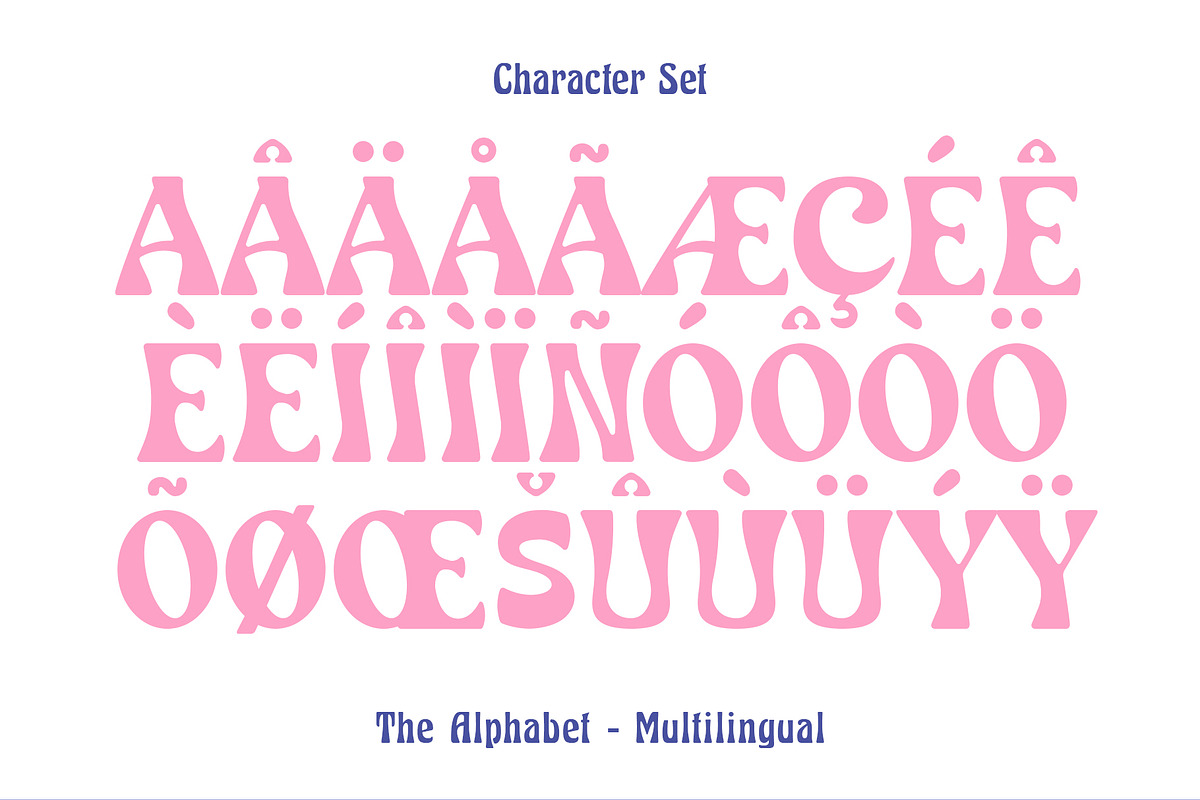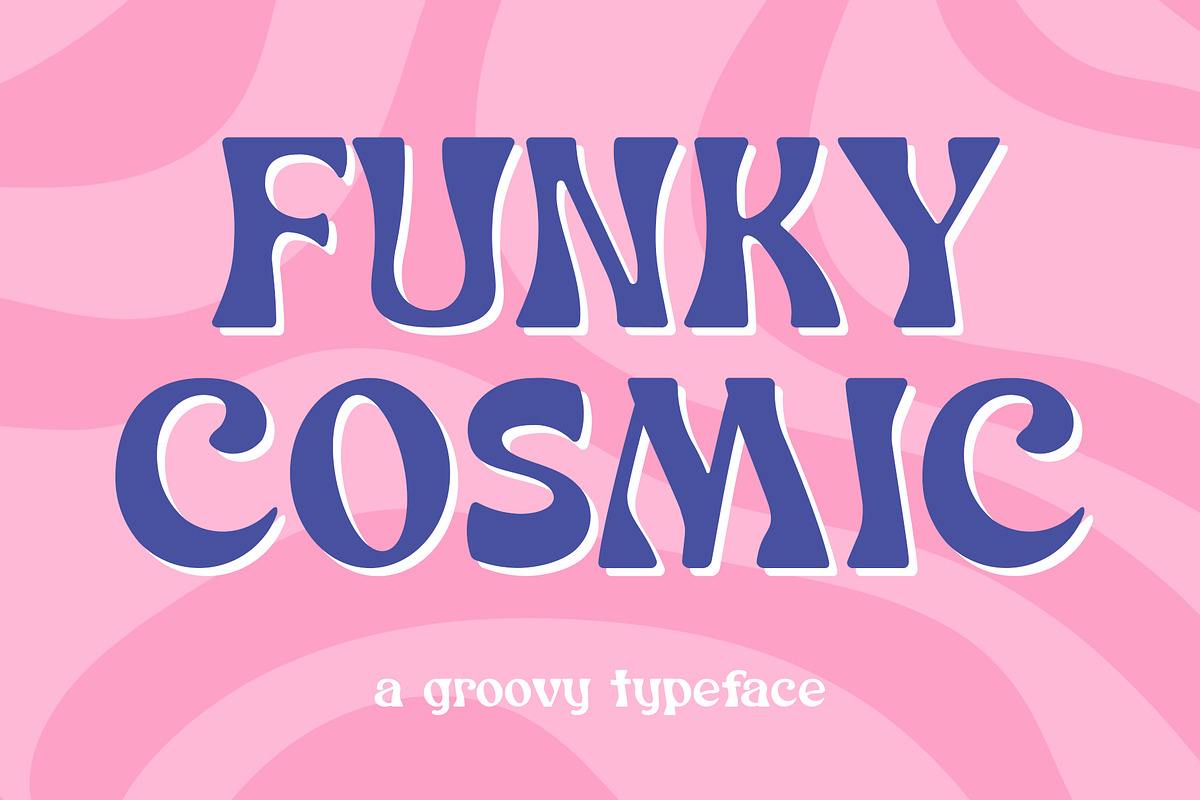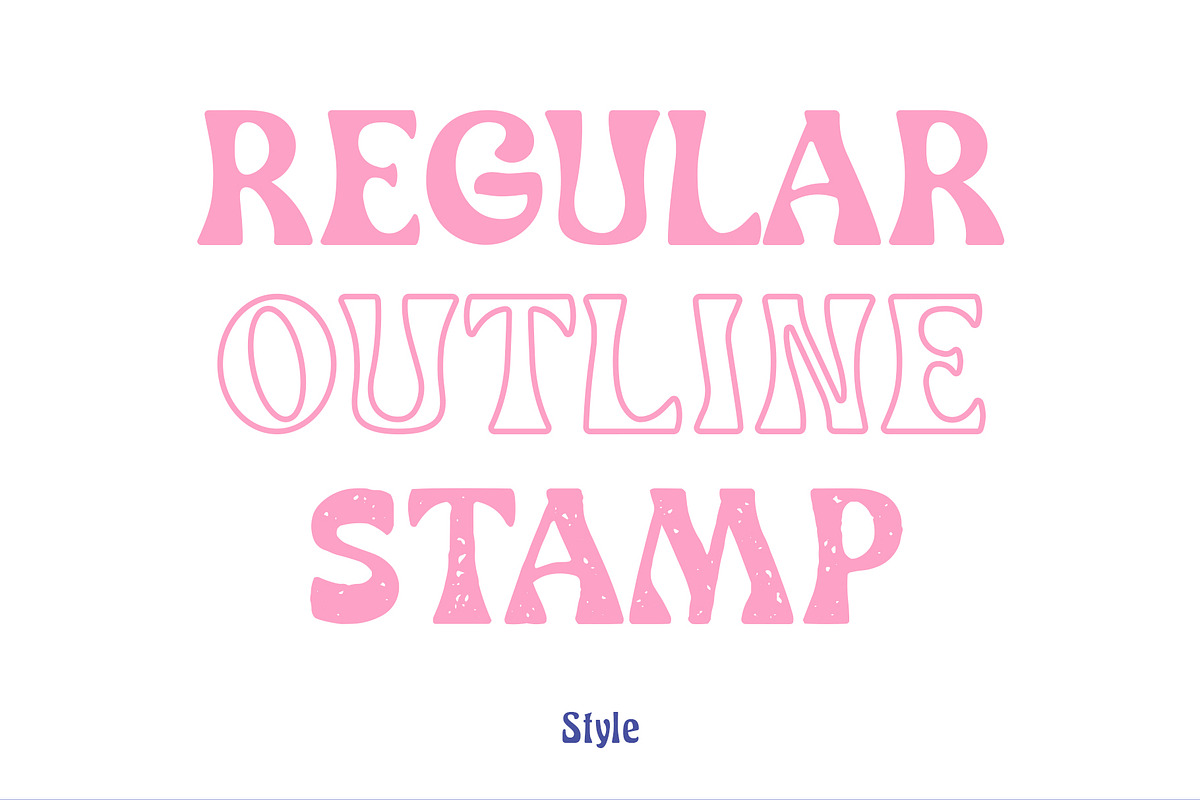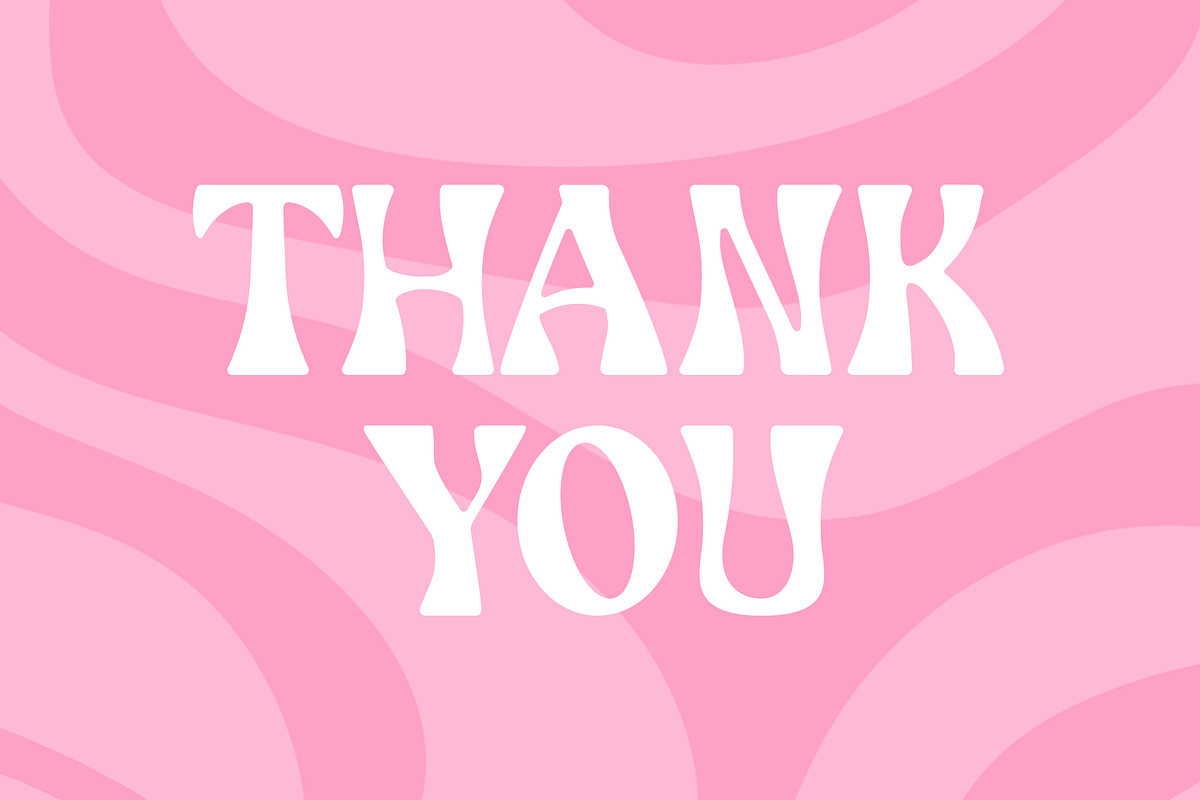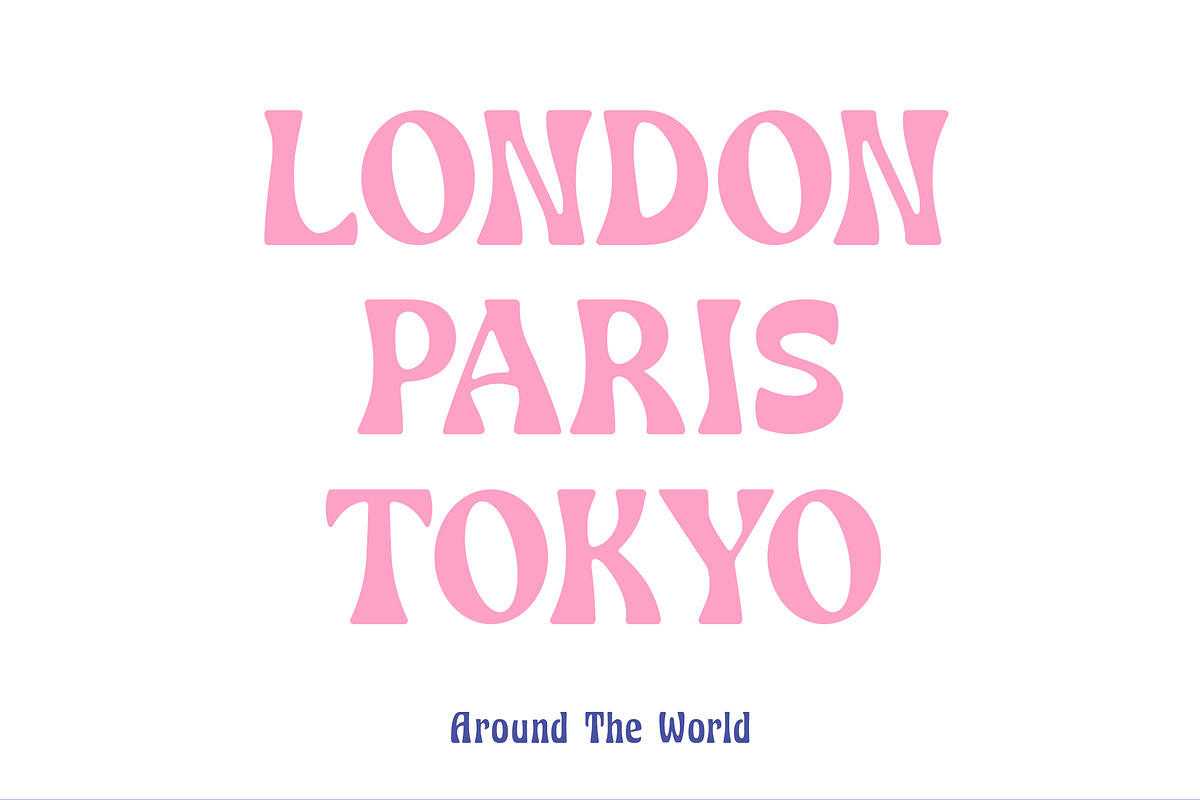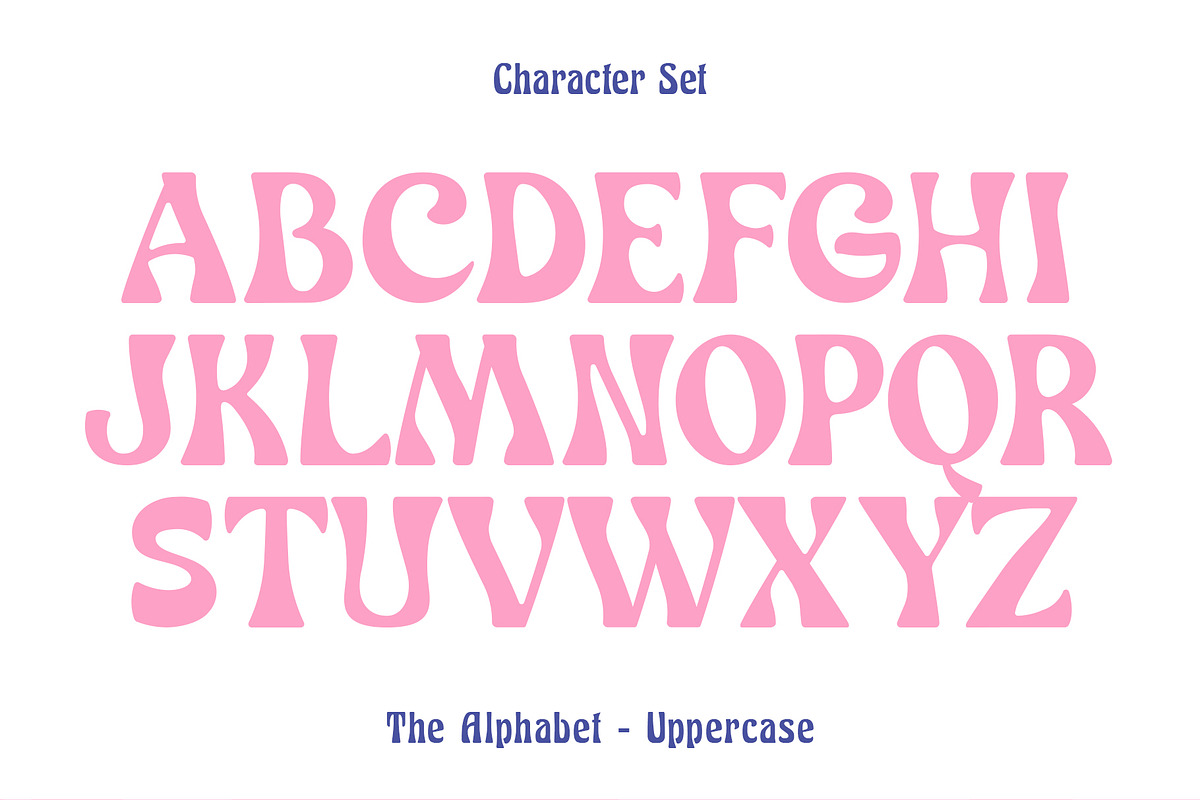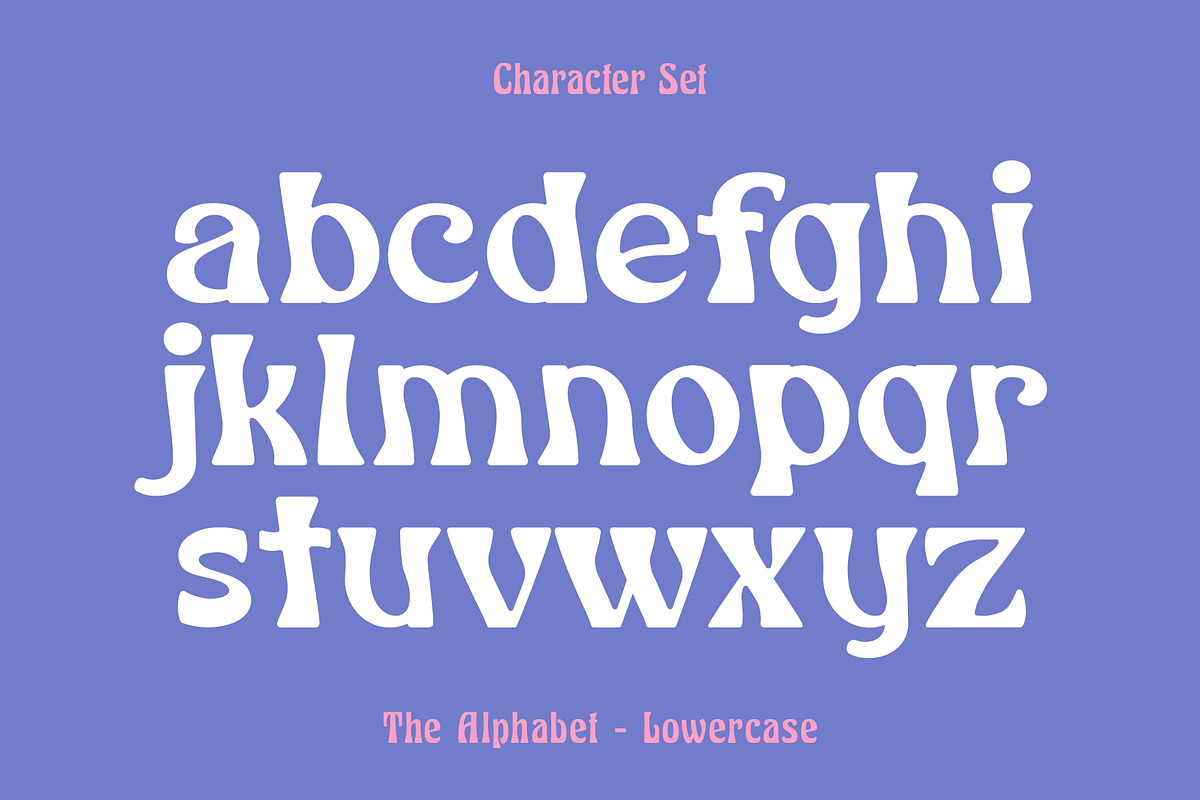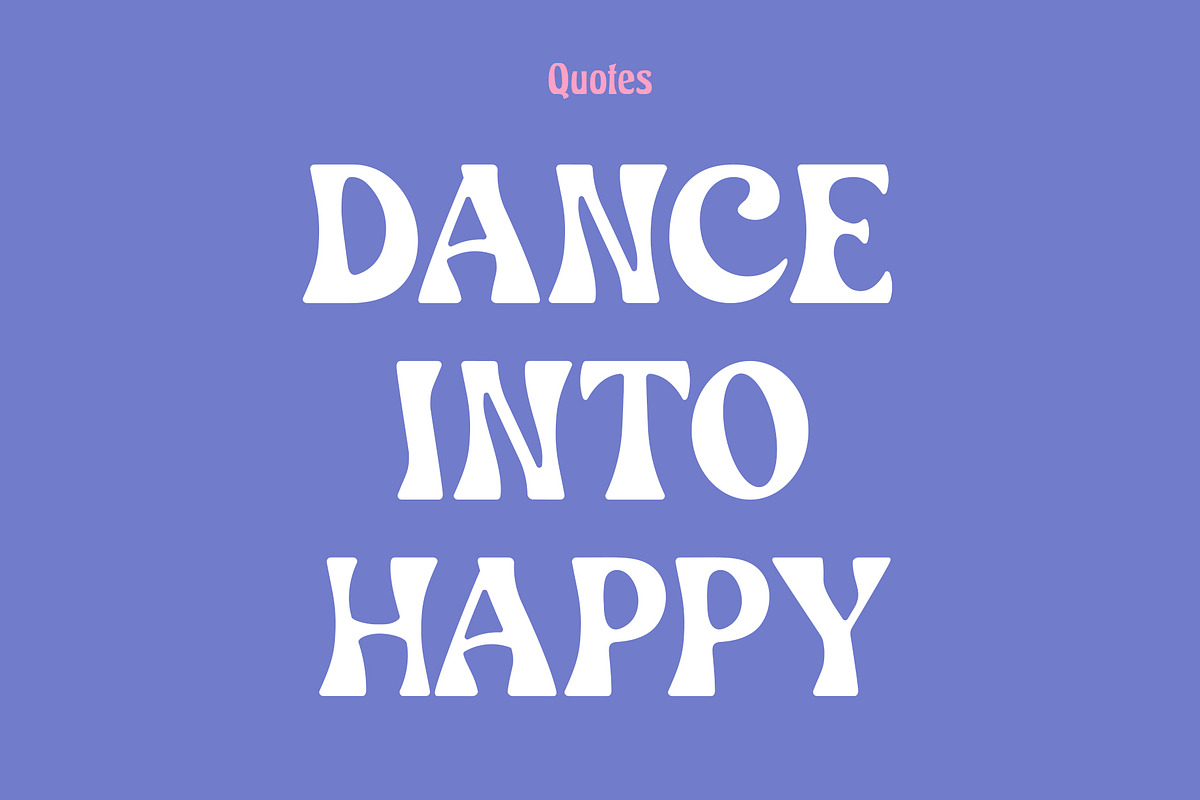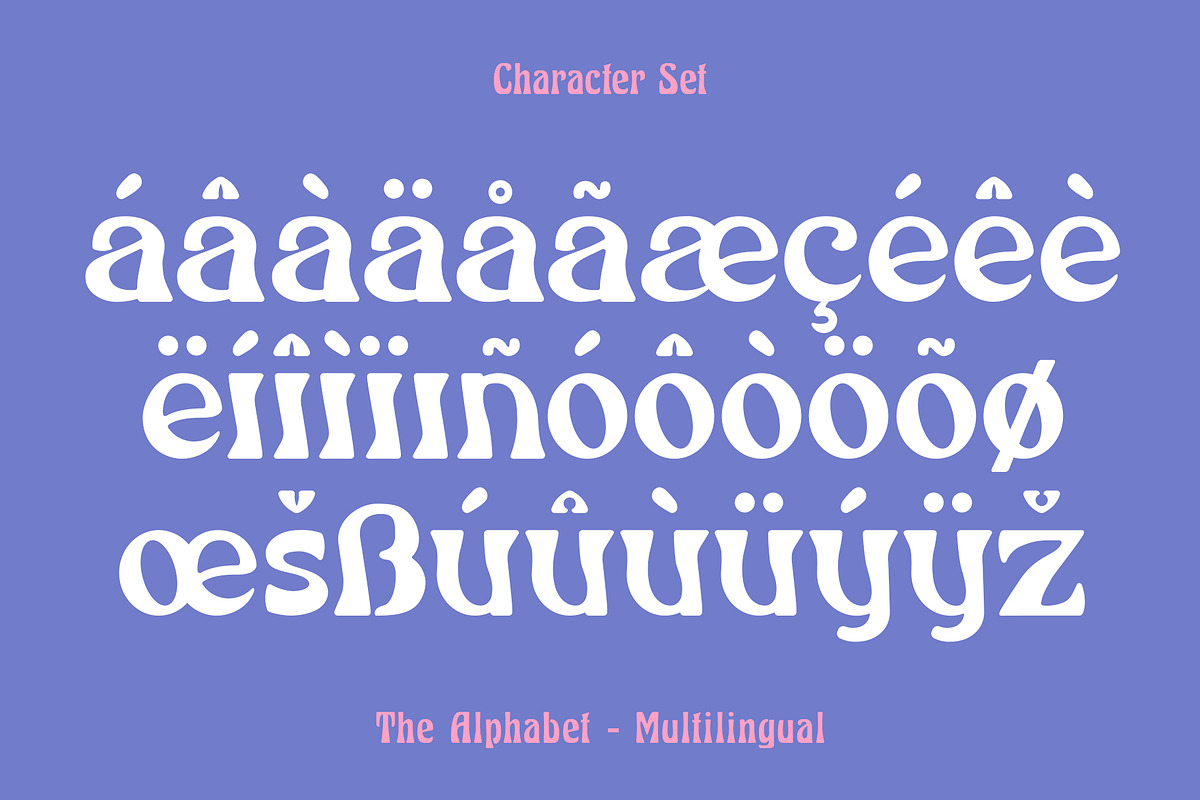
Funky Cosmic - Retro Groovy Font
Funky Cosmic is a retro groovy serif font style product that captures the vibrant and playful design aesthetics of the 1970s. The font features distinct, rounded serifs that add a touch of elegance and sophistication to its overall appearance. Its bold, expressive letterforms are reminiscent of the psychedelic art and music scenes of the era, making it a perfect choice for a wide range of design projects, from vintage-themed branding to eye-catching headlines and posters.
The font's unique personality and playful spirit make it a great choice for designers looking to add some retro flair to their work.